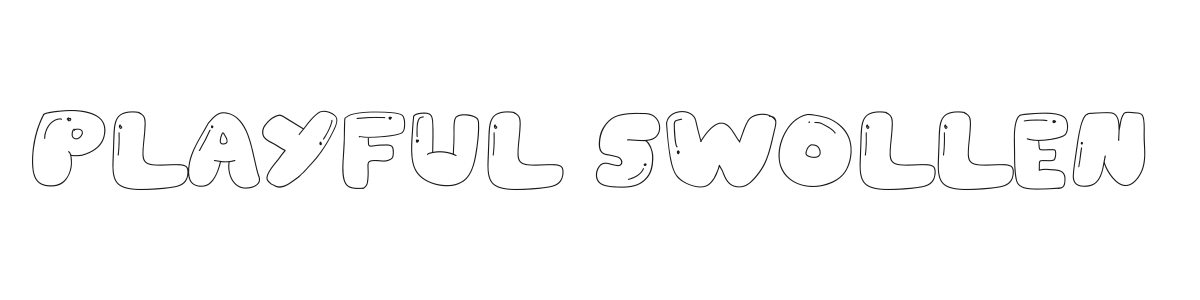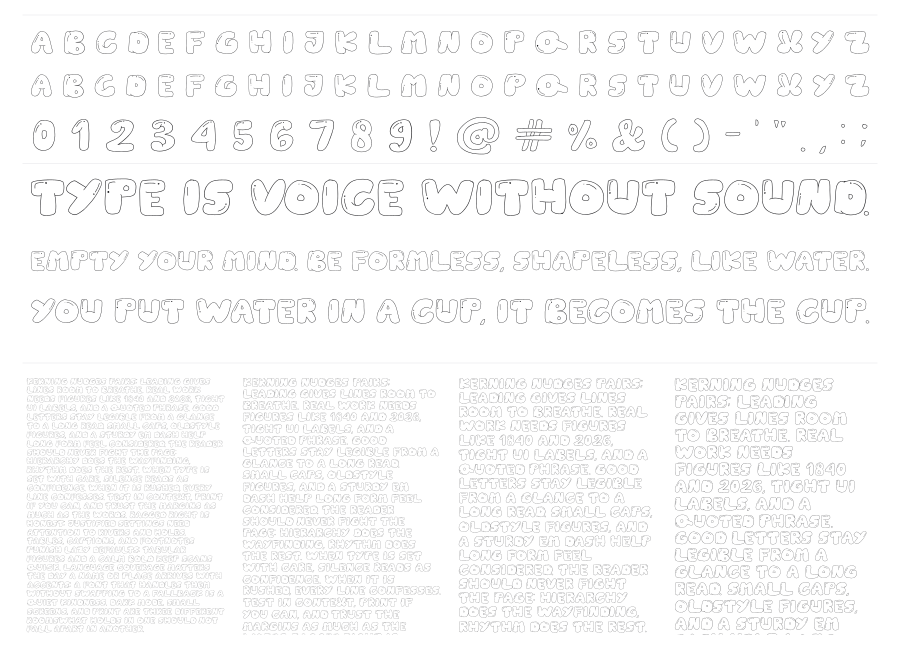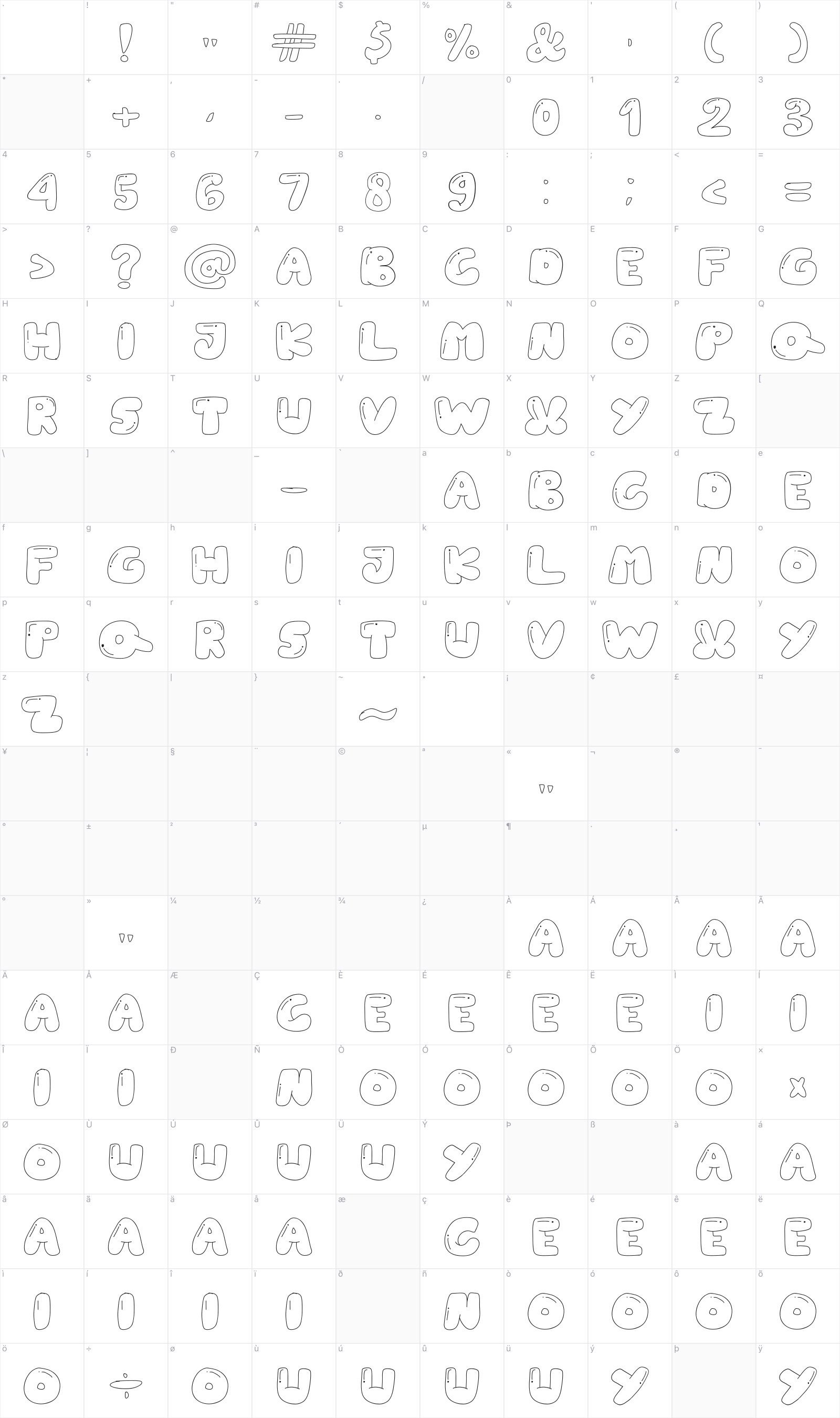
Playful Swollen
Playful Swollen is a bubbly outline display font with exaggerated inflated proportions and soft, rounded shapes throughout. The thin outline stroke has subtle organic wobble, giving it a hand-crafted feel that sits somewhere between balloon lettering and a cartoon title card. Great for anything that needs to feel light, bouncy, and approachable.